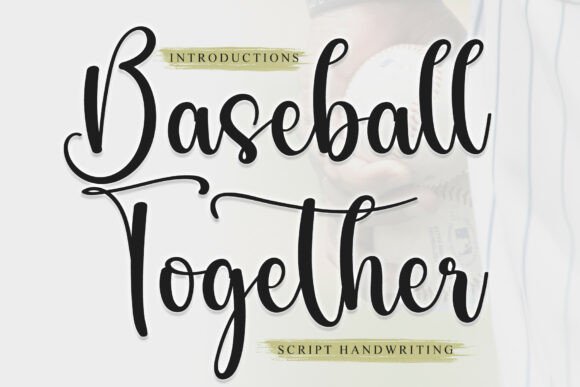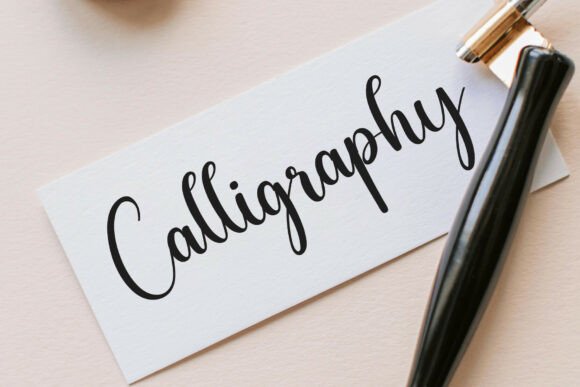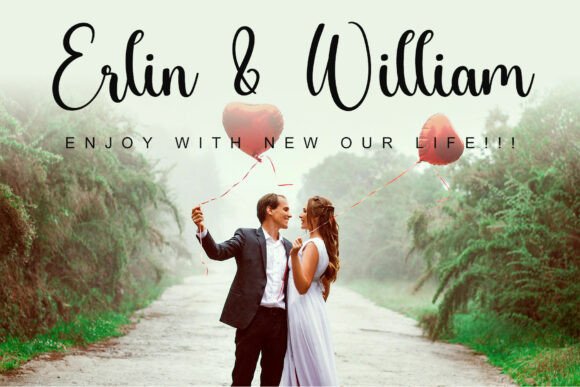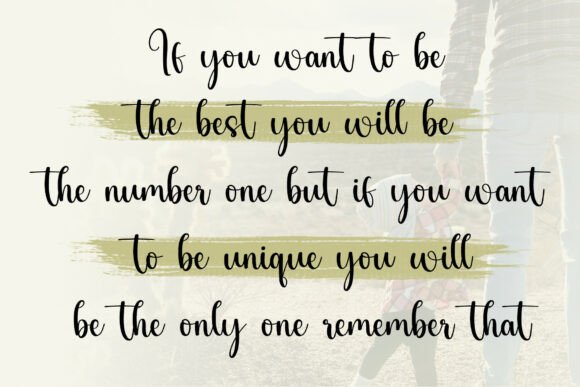
Baseball Together Font
About the Baseball Together Font
Welcome to the world of Baseball Together Font, a typeface that will inspire your next great project. Baseball Together is a font that captivates with its bold, fluid strokes and dynamic script style. Designed to exude strength, elegance, and charisma, this font blends the beauty of handwritten calligraphy with a modern and assertive touch. Whether you need a striking logo, a stylish headline, or an eye-catching branding element, Master Daddy delivers with confidence and flair.
Baseball Together excels in headlines, logos, and short, impactful taglines. Its energetic style makes it ideal for sports-related branding, posters, and merchandise where a bold, confident statement is needed. Avoid using it for body text or lengthy paragraphs; its highly stylized nature reduces readability in extended use.
This font’s personality is energetic and confident, yet retains a touch of elegance. It pairs well with clean sans-serif fonts like Open Sans for balance, or a more geometric sans-serif for a modern, streamlined feel. Consider pairing it with a simple serif like Lora for a touch of classic sophistication.
For a more playful approach, a handwritten sans-serif could complement its fluid strokes. However, avoid pairing it with overly decorative or script fonts, which might create visual clutter.